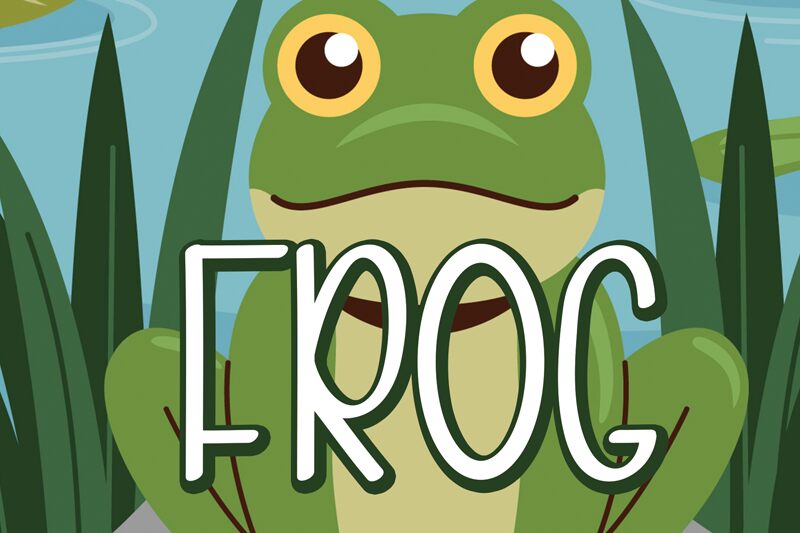
Frog
Frog is a captivating display font that exudes a delightful, cartoon-like charm. Designed by Andi Moz, this condensed font boasts a whimsical personality, with its rounded, playful letterforms beckoning to be used in a variety of creative projects.
The font's unique style lends itself particularly well to children's designs, packaging, and branding applications that seek to evoke a sense of playfulness and lightheartedness. Its compact width makes it an excellent choice for when space is limited, while its bold presence ensures it maintains visual impact.